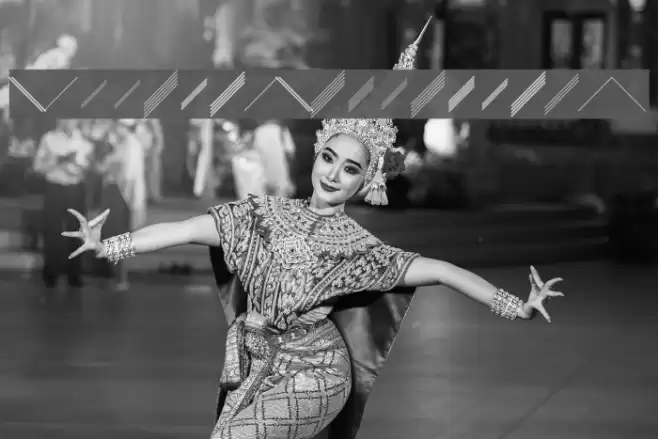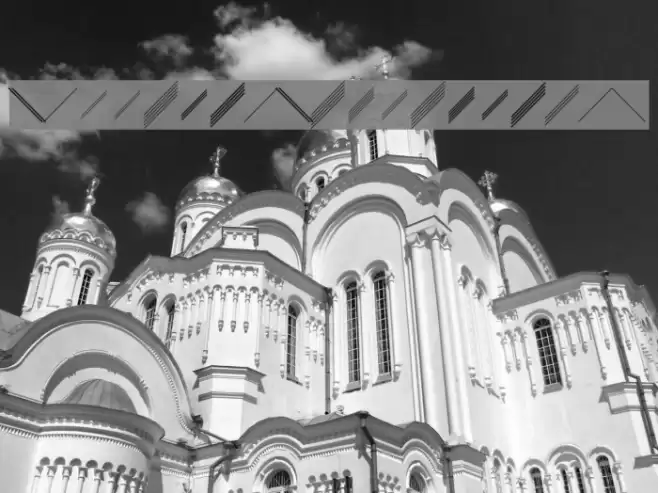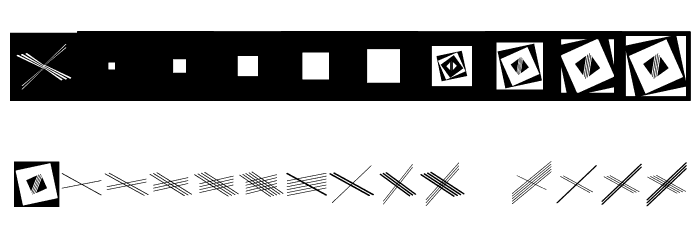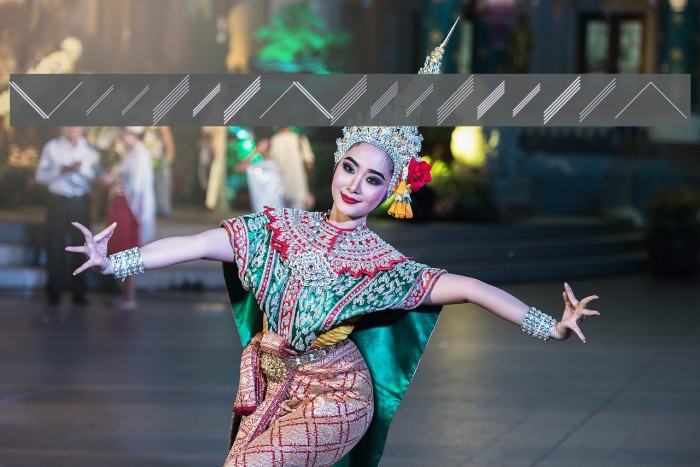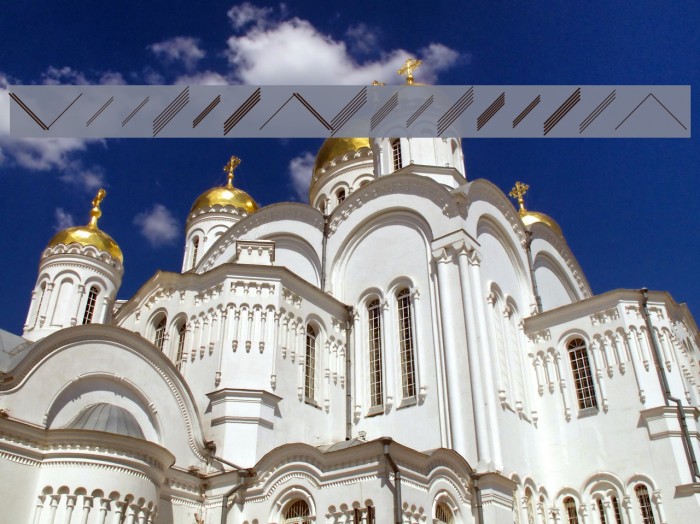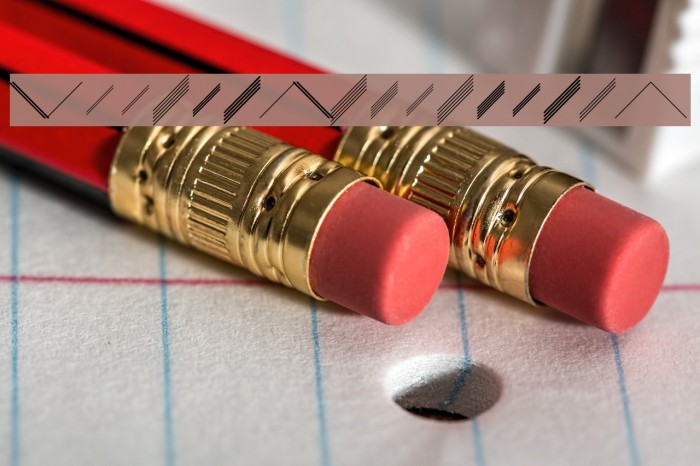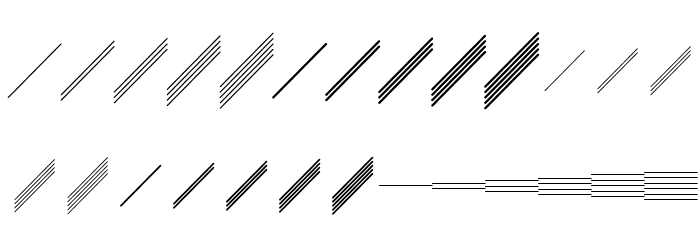
GalleriaGeometricaA Font
GalleriaGeometricaA Description
This design features a series of geometric lines and shapes, creating a visually striking pattern. The elements are composed of parallel lines arranged in various configurations, forming diagonal, vertical, and horizontal alignments. The design includes both thin and thick line variations, contributing to a dynamic and rhythmic visual flow. The use of negative space and contrasting line weights adds depth and dimension, making the overall composition appear both structured and fluid. The pattern is versatile and can be adapted for various creative applications, offering a modern and abstract aesthetic.
A geometric pattern with parallel lines creating dynamic and rhythmic visual flow from Uncategorized fonts.
- Proposed Projects: Ideal for modern art installations, abstract wallpapers, graphic design projects, and architectural decor.
- Use Case: Art installations, Graphic design, Architectural decor